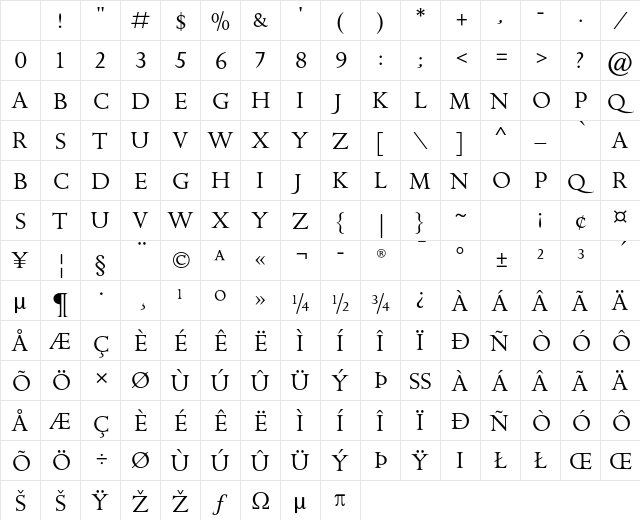
Golden Cockerel ITC Std Titling
Style: Titling
Designer: Dave Farey/Richard Dawson
Design Context for Golden Cockerel ITC Std
Golden Cockerel ITC Std is a composed and adaptable typeface that performs quietly and consistently across a wide range of design contexts.